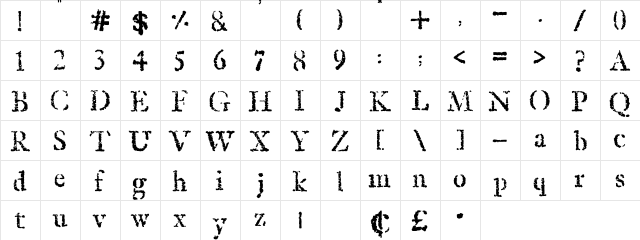
Old Rubber Stamp Regular
Design Context for Old Rubber Stamp Typeface
Old Rubber Stamp has the rough pragmatism of spray-painted stencil signage, adding a raw, street-level authenticity to designs.
Ideal for industrial branding, streetwear, military-adjacent aesthetics, and urban signage projects.
Pro Tip: Pair Old Rubber Stamp with raw, utilitarian design elements — exposed concrete textures, flat colour, and minimal ornamentation suit it well.